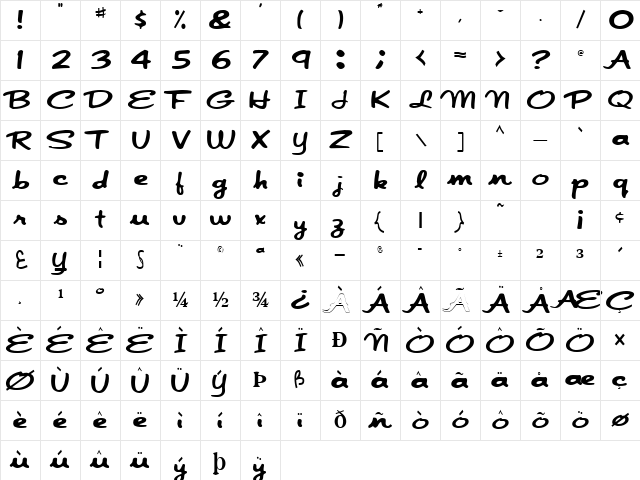
JapanScript911 Regular
Complete JapanScript911 Regular glyph index. Displaying only characters natively supported by JapanScript911 Regular font.
Design Context for JapanScript911
JapanScript911 flows with the natural rhythm of handwritten lettering, making it ideal for designs that call for warmth and personal expression.
Font Pairing: Combine JapanScript911 with a simple geometric sans for maximum contrast - the tension between flowing curves and clean structure is a classic typographic pairing.
Pro Tip: Use JapanScript911 for short runs of text - names, titles, or taglines. Extended body copy in script faces tires the eye quickly.